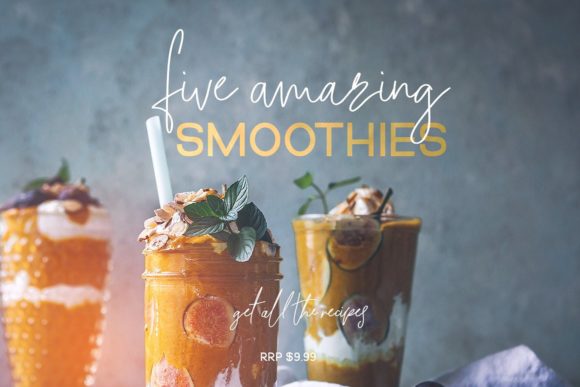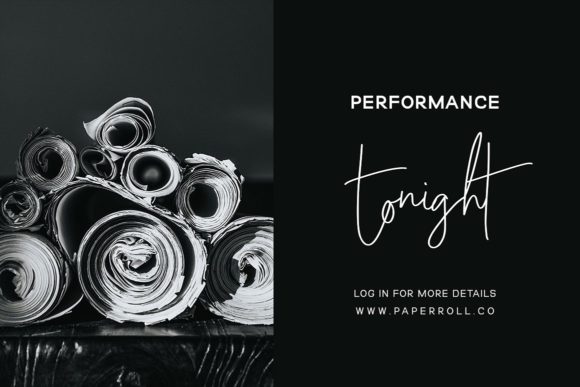
Quest for Design Family Font
db-ku.com - Script & Handwritten -- This super stylish natural script font is paired with a simple clean sans serif to create the perfect pair!